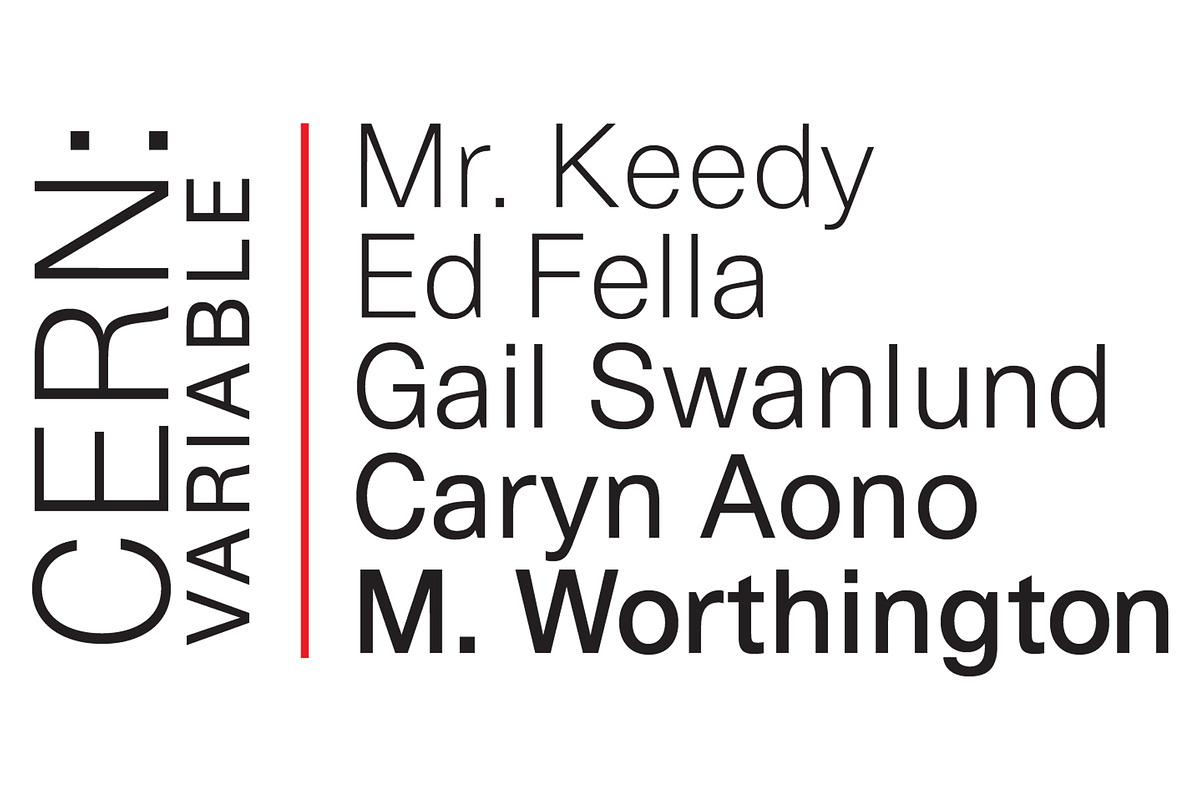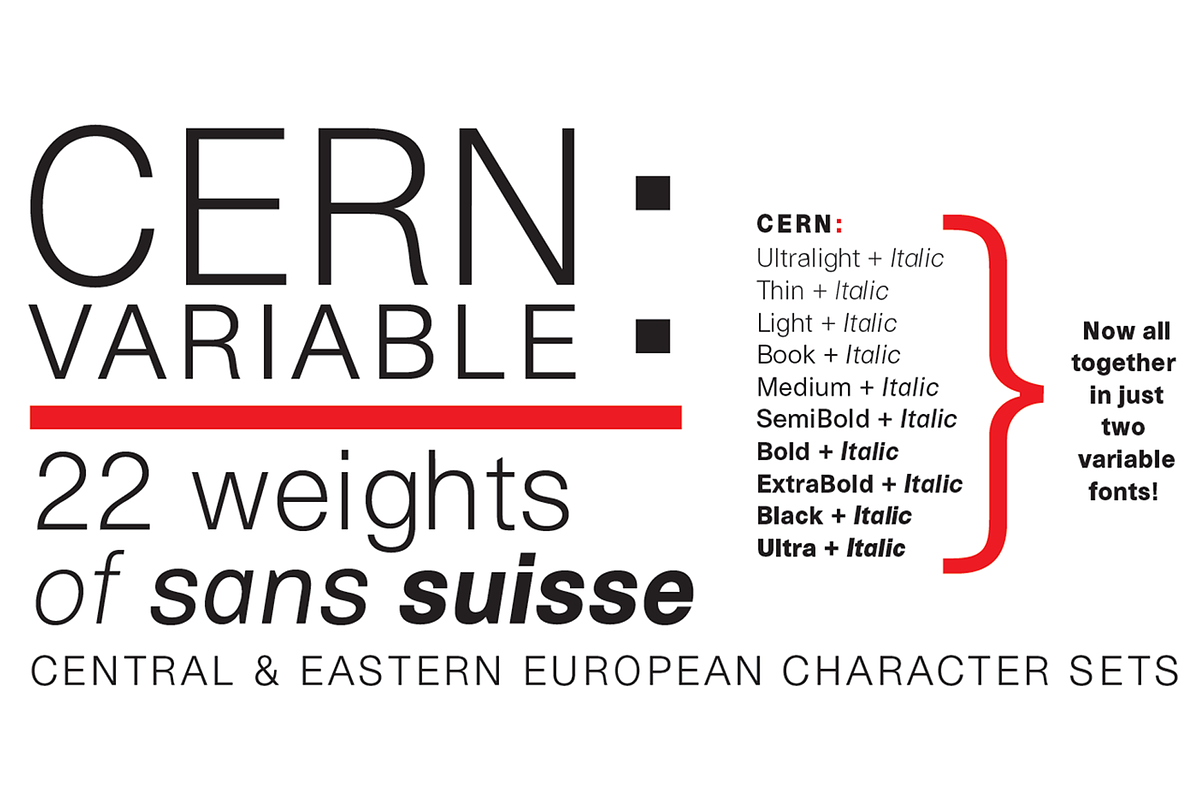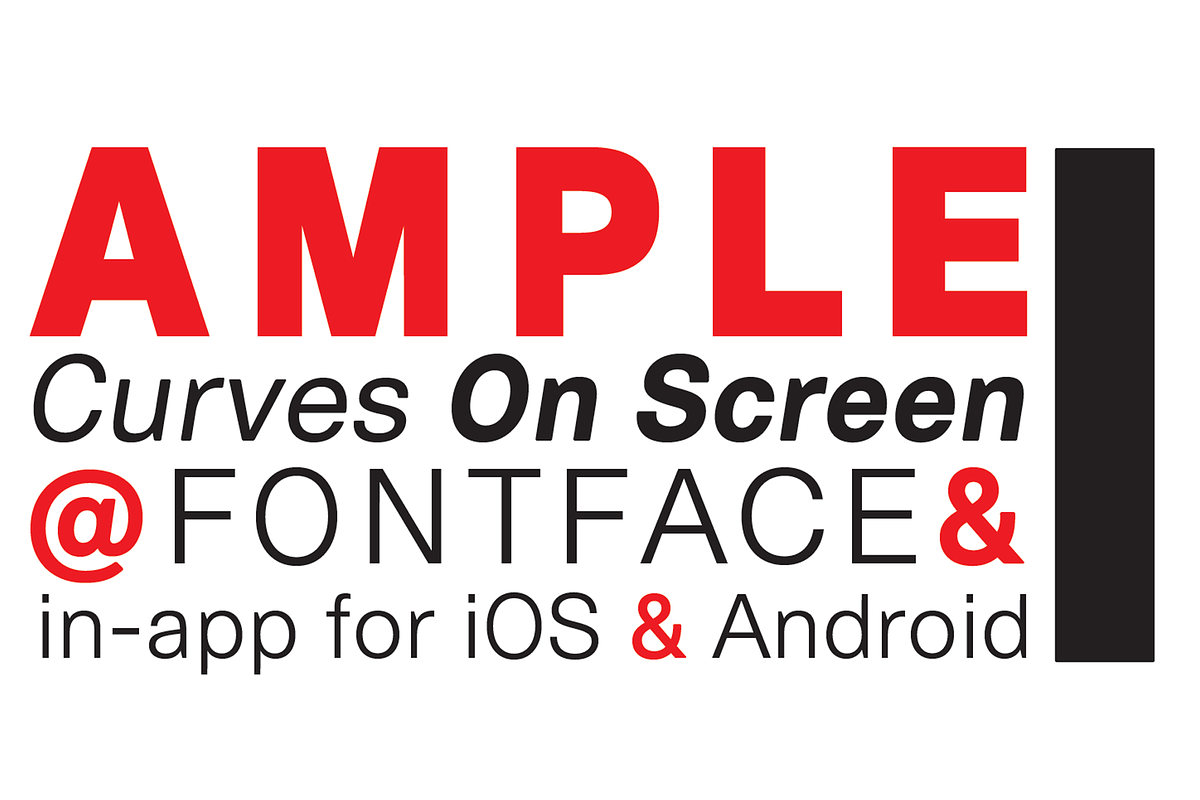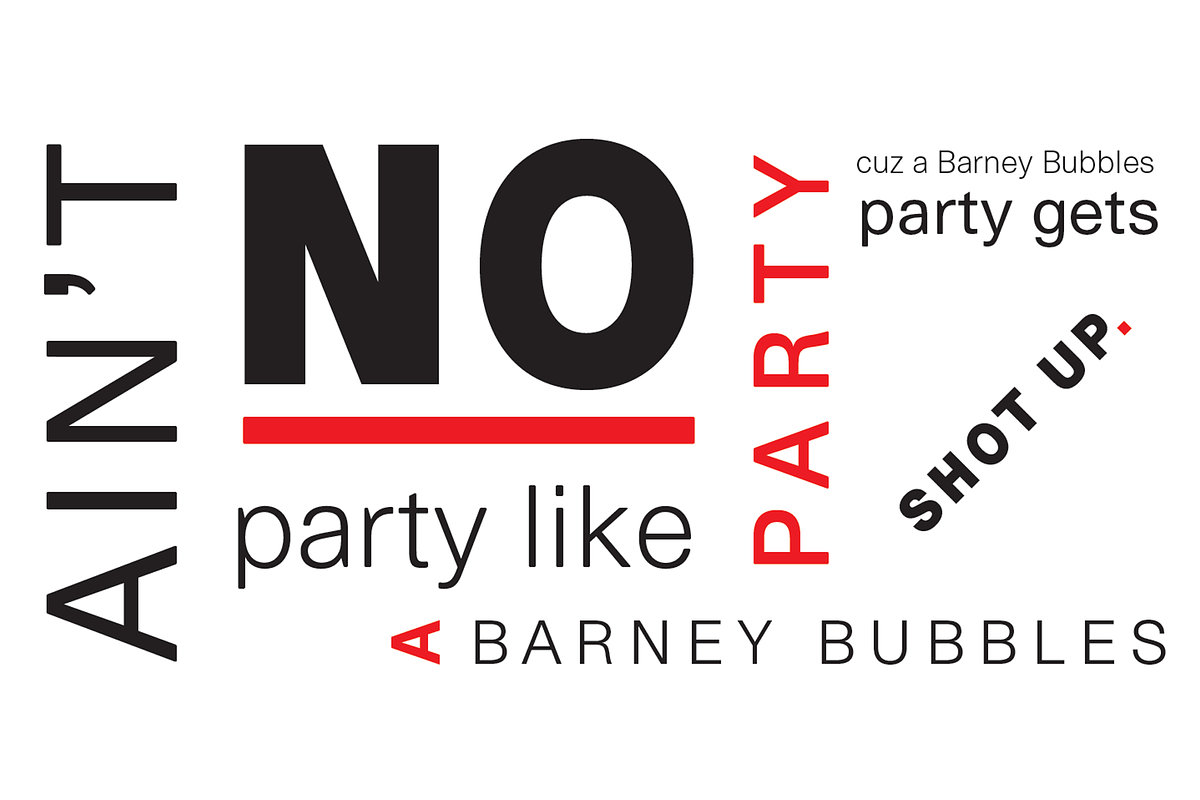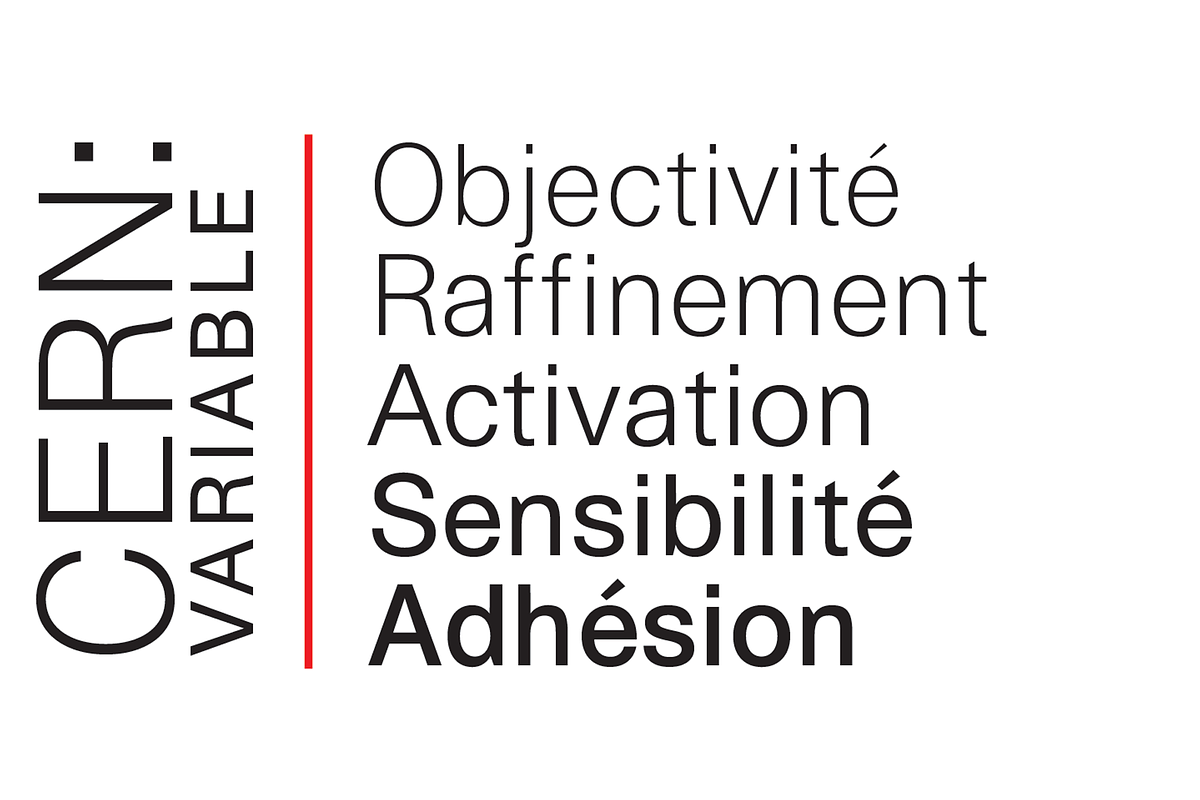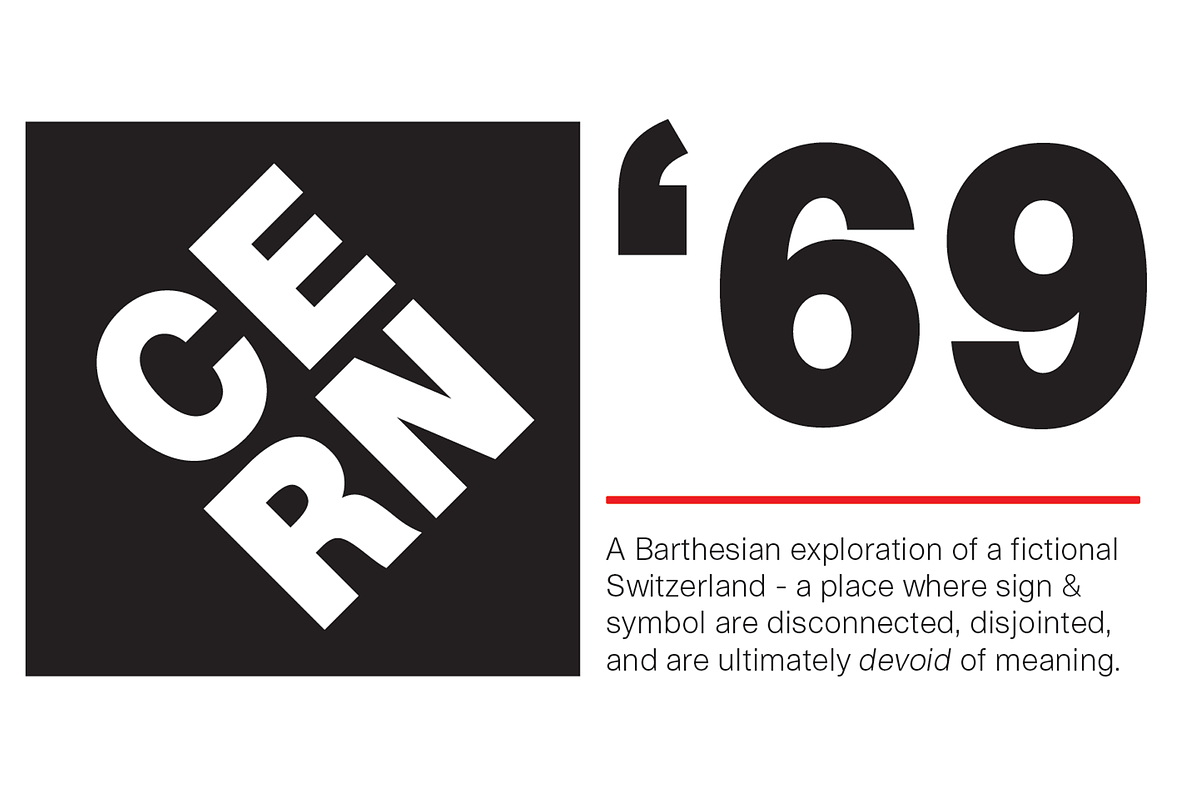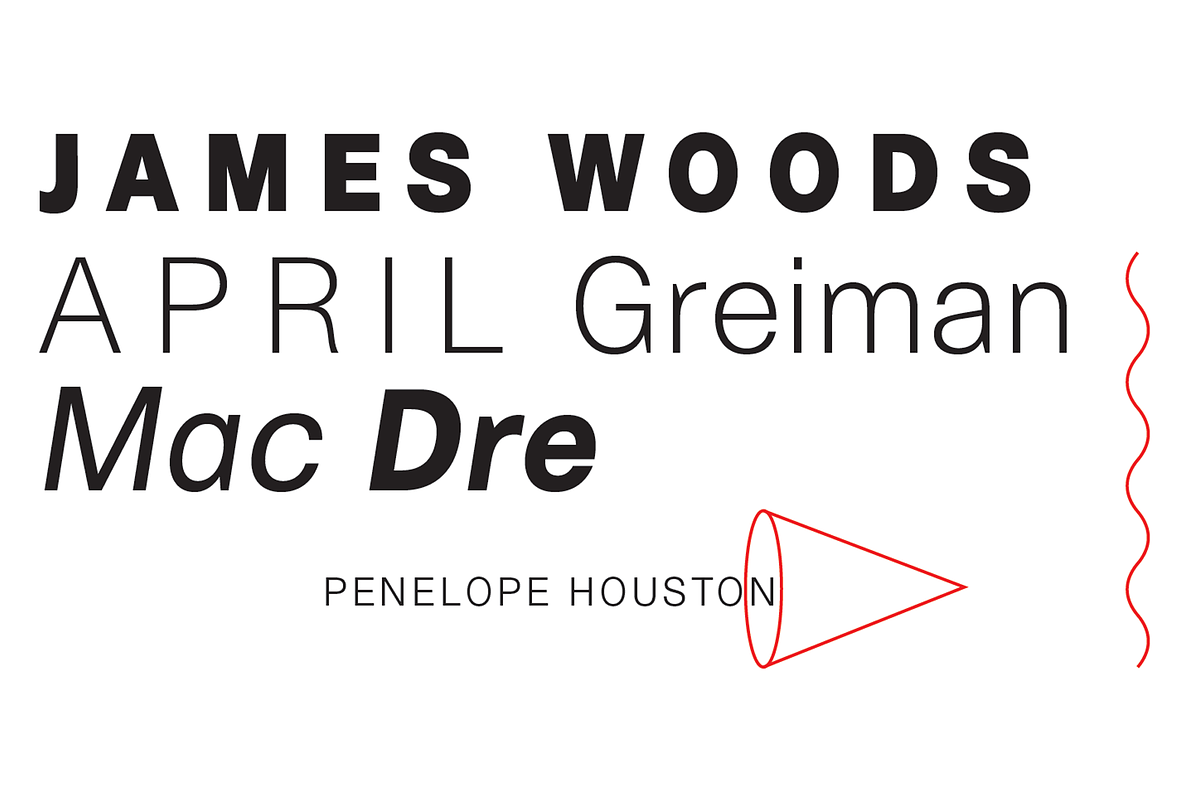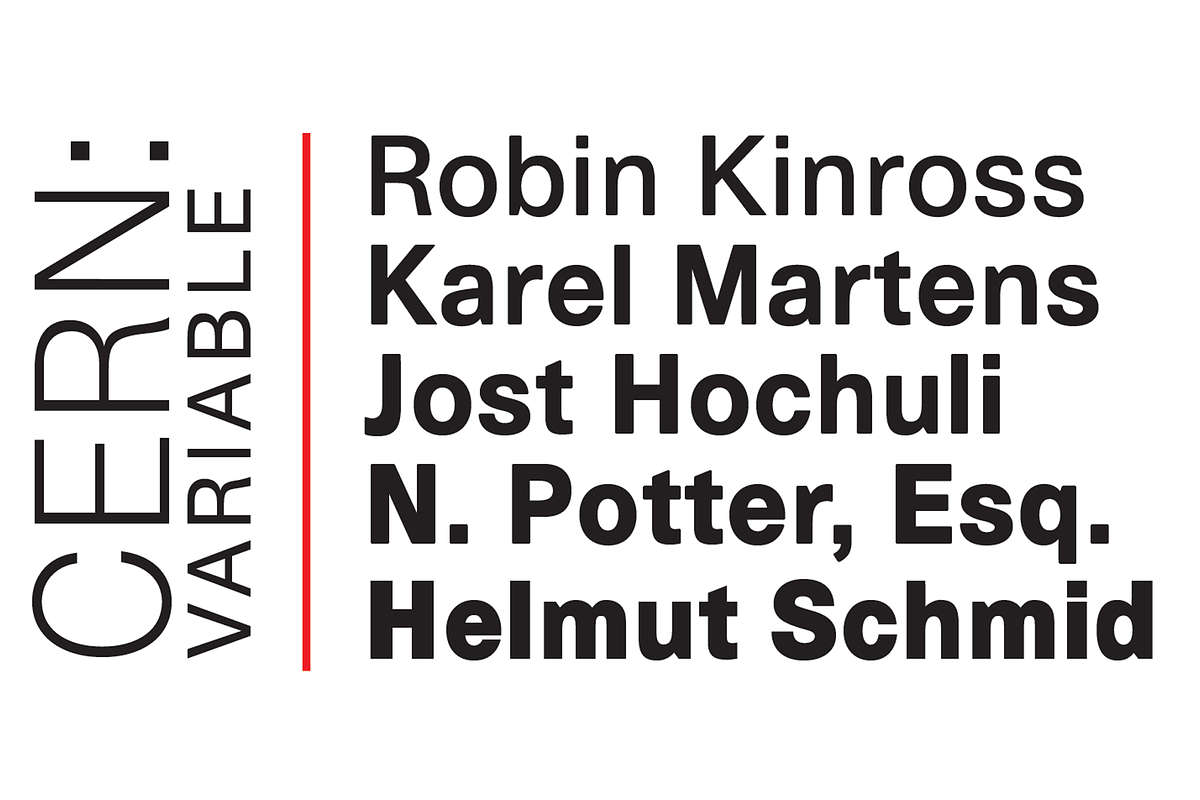
Cern Variable
Cern Variable designed by Ian Lynam is a family of 2 variable fonts (Regular & Italic) that combine 22 weights and cuts of neutral, yet formally nuanced grotesk typefaces that takes inspiration from Helvetica, Akzidenz Grotesk, Univers and the original metal types from Switzerland, yet has a slightly larger x-height for more pronounced legibility.
Each weight is designed to be highly readable in print and on-screen. The italic variations are true italics, having a single-storied italic a and have been designed for smooth, fluid reading and text-setting. Lovingly spaced and kerned, the Cern family works equally well for text typesetting and for display design work. The entire family is comprised of a range of weights.